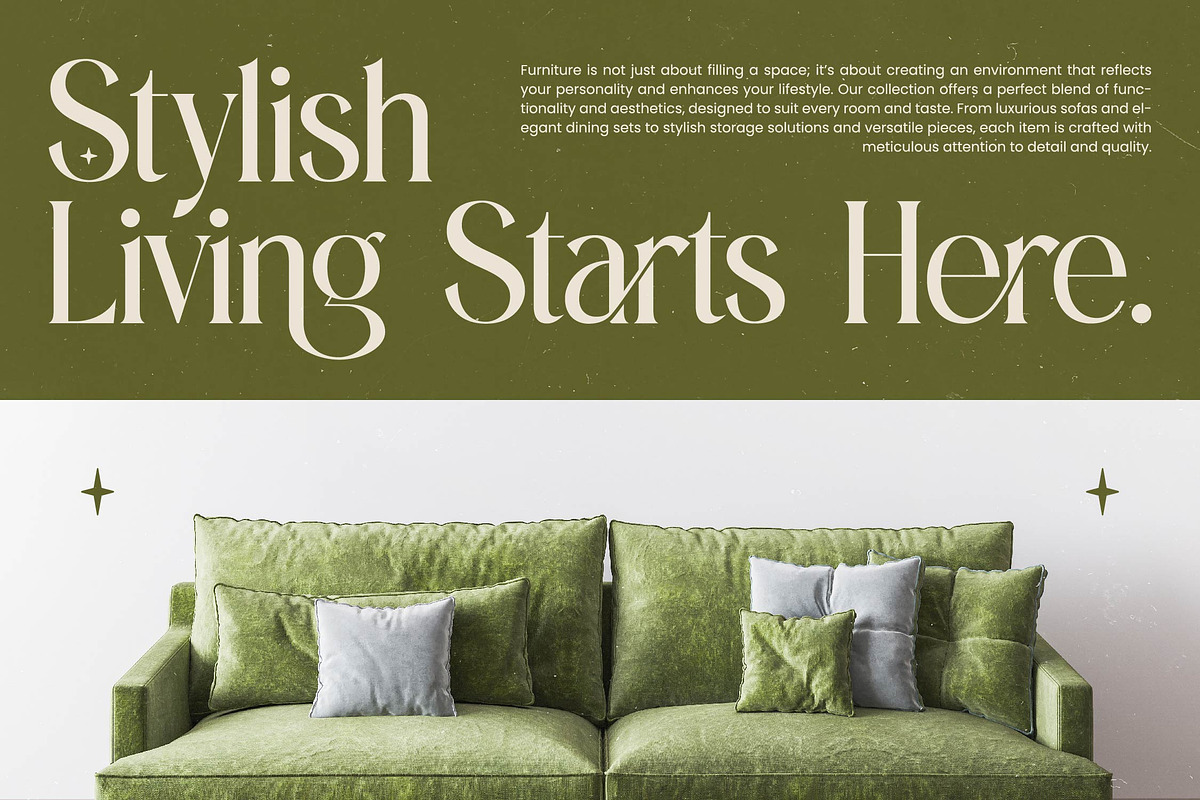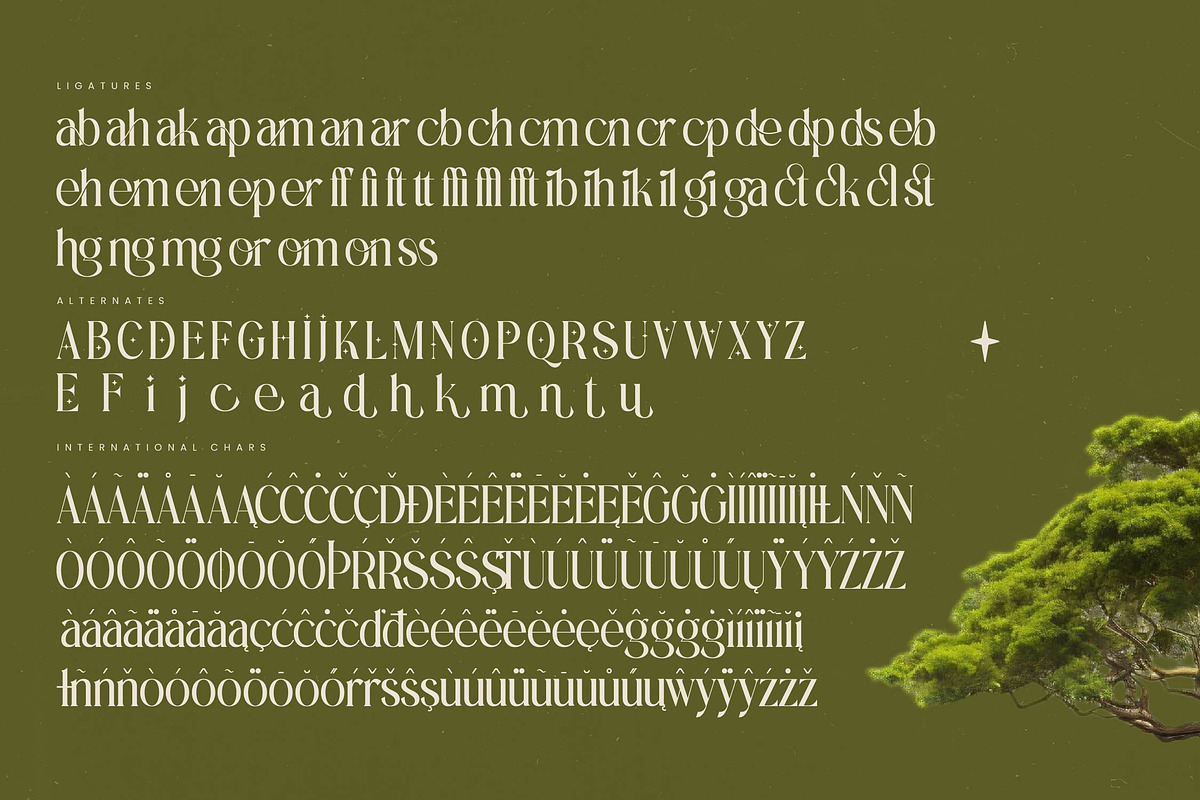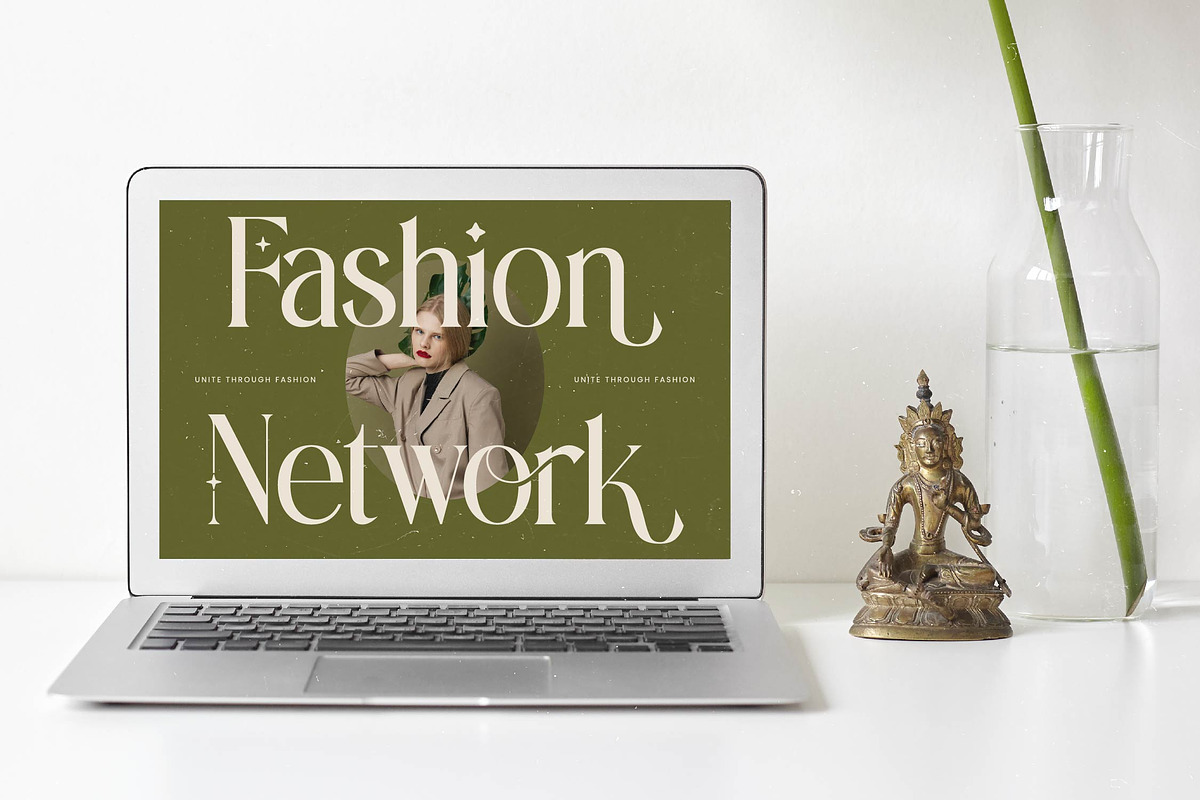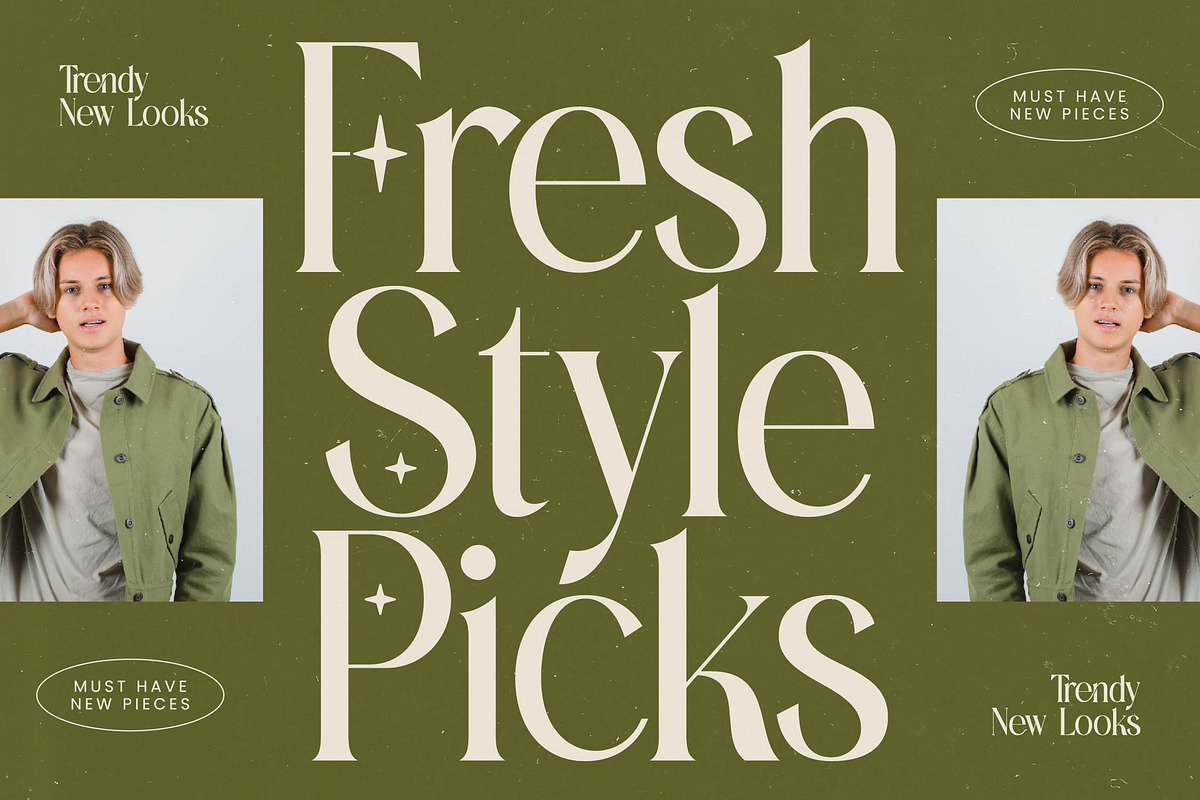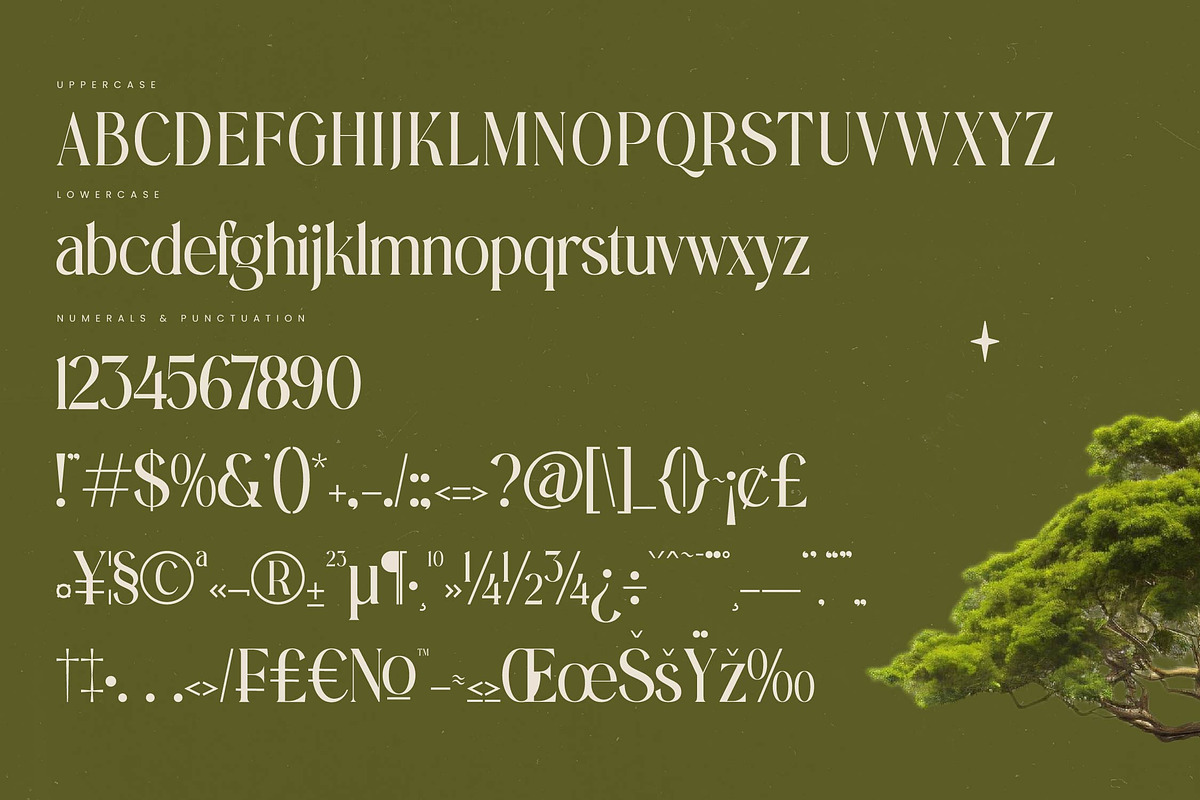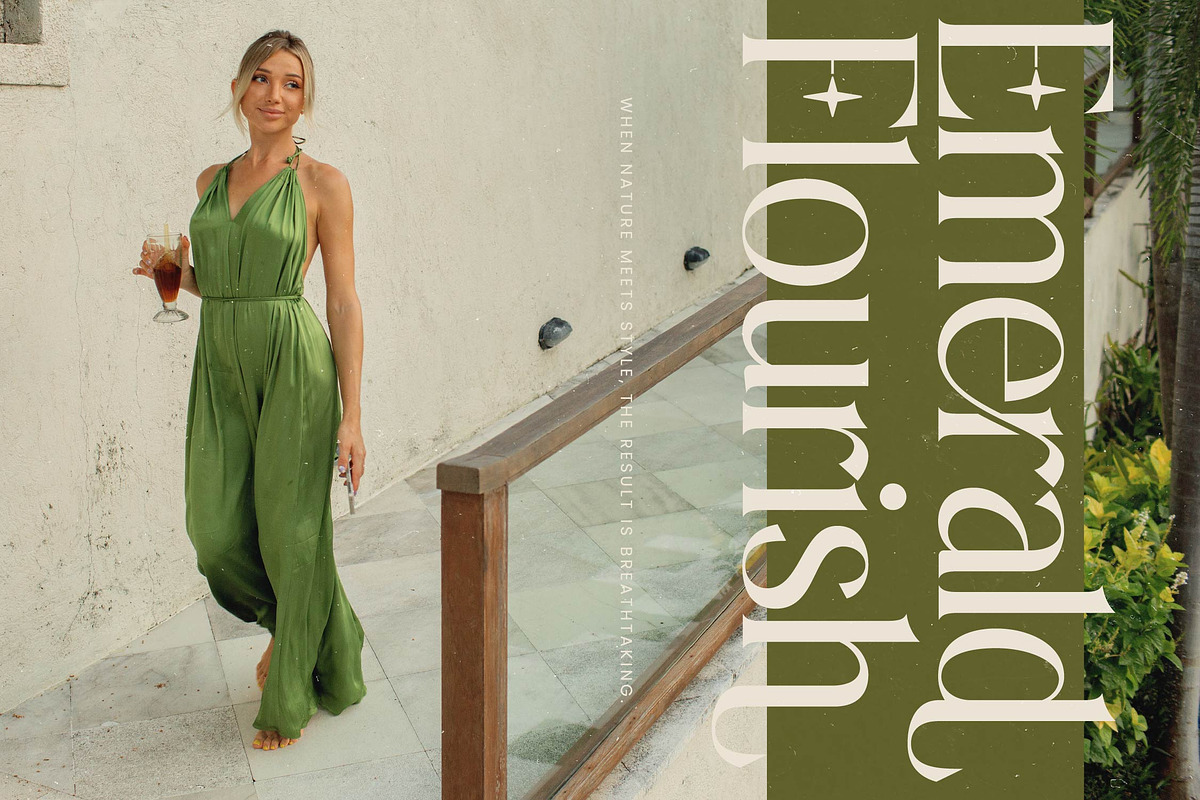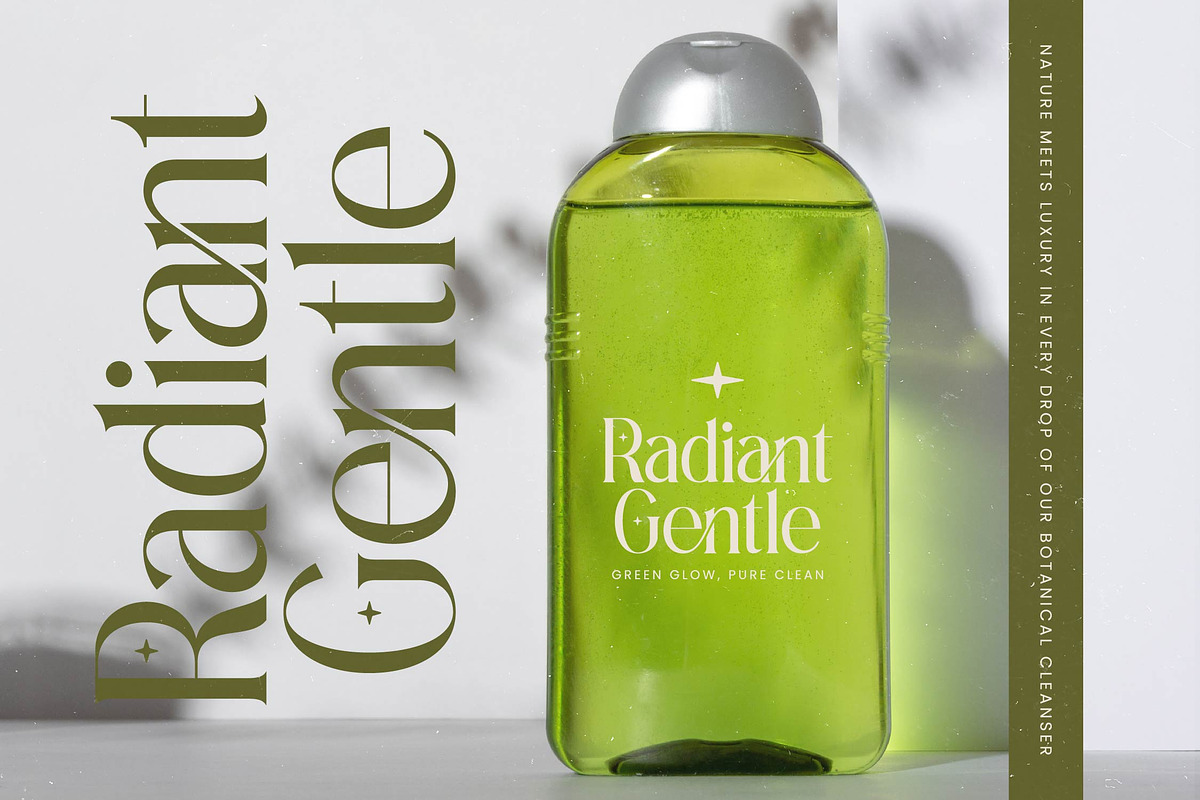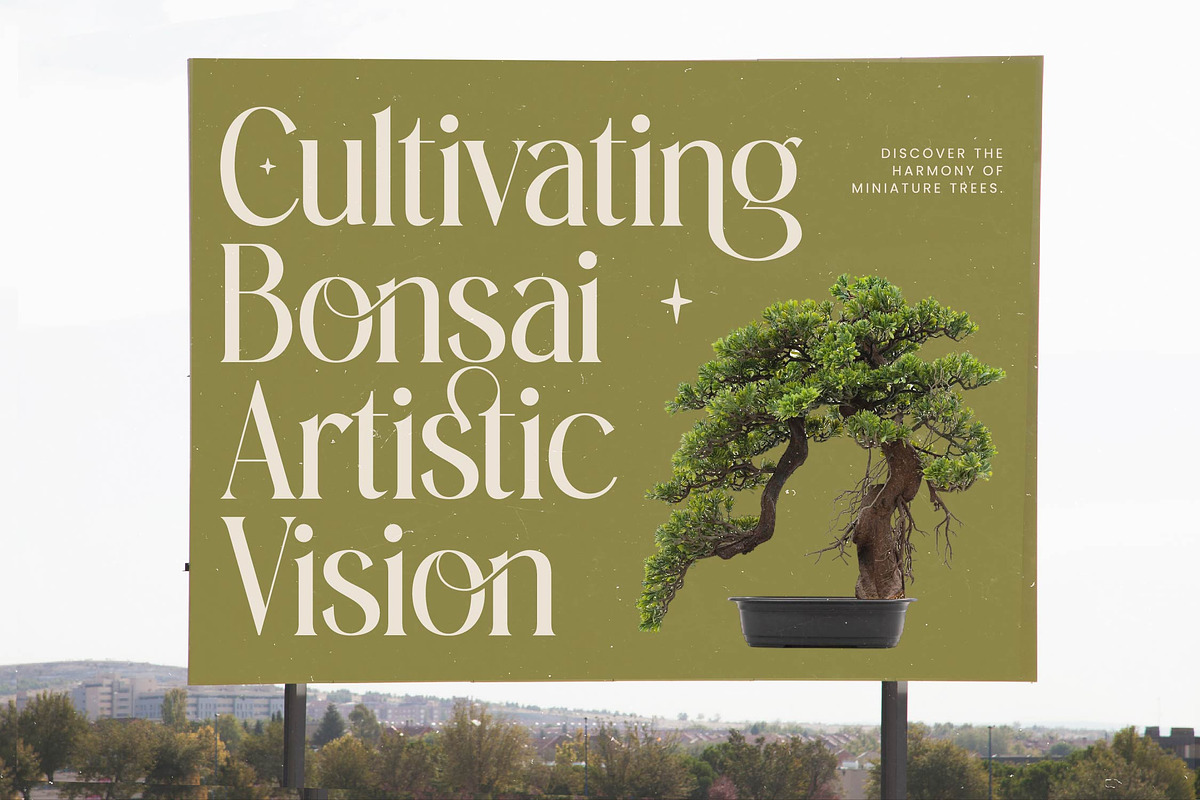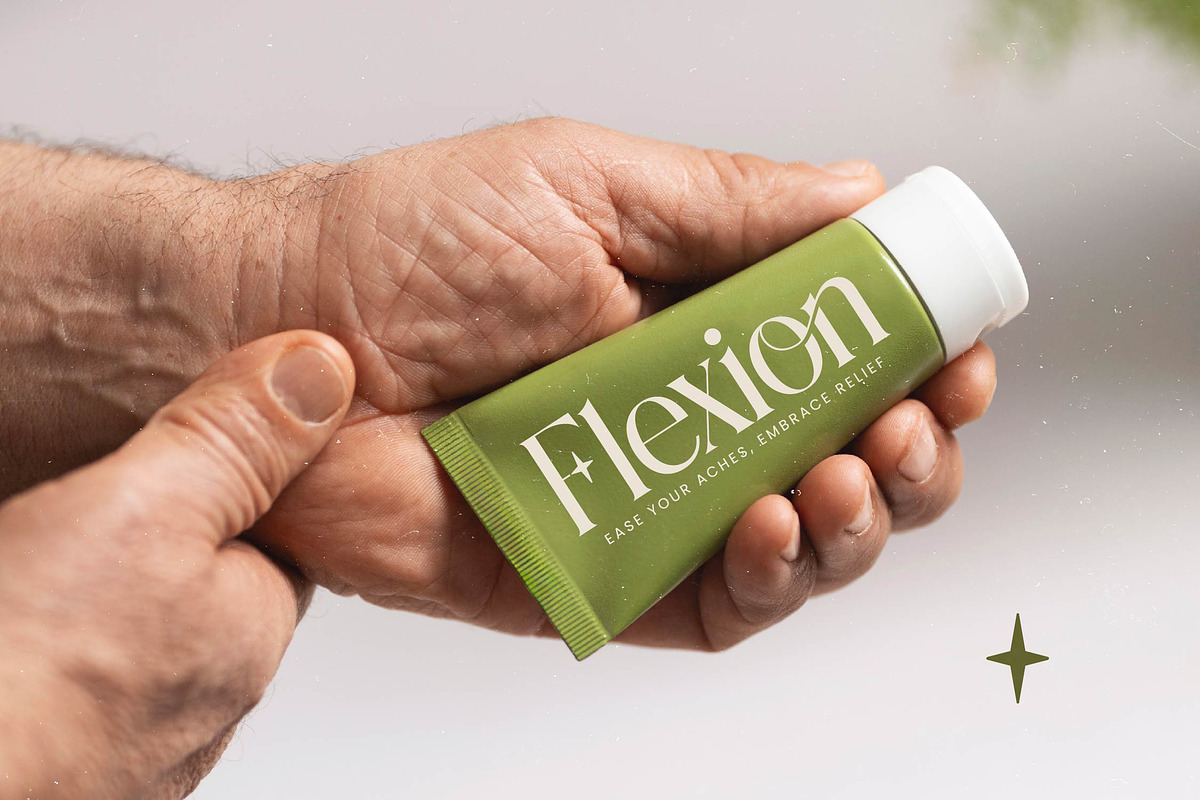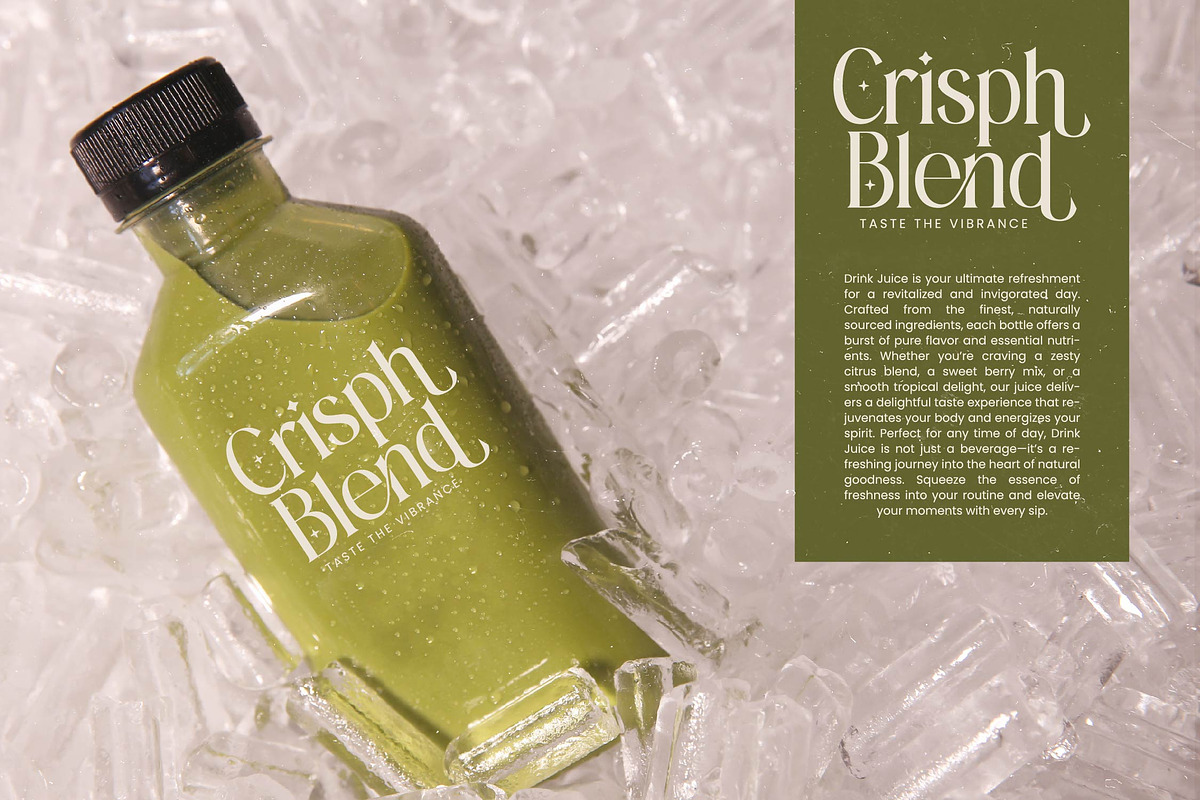
Eternalo Bold Luxury Modern Serif
Elevate your creative vision with the timeless elegance and sophisticated presence of Eternalo Bold. This typeface captures a perfect balance between classic stature and contemporary flair, designed to command attention in any layout.
Inspired by the organic geometry of the natural world and the enduring strength of ancient silhouettes, the font reflects a sense of deep-rooted heritage. Its tall, graceful forms evoke a serene atmosphere that feels both grounded and aspirational.
As a premium modern serif display, this typeface delivers a powerful branding impact through its razor-sharp high-contrast serif details. It is the quintessential luxury typography solution for designers seeking a high-end editorial font that bridges the gap between art and communication.
Staying ahead of the modern serif trend, this typeface embraces the movement toward character-driven typography that prioritizes personality without sacrificing legibility. It is a standout choice among editorial display fonts, offering a unique voice that resonates with today’s aesthetic demands.
Perfectly suited for high-stakes logo design and comprehensive branding identity systems, it excels in premium editorial layouts and luxury packaging. Its refined aesthetic makes it a favorite for wedding invitations and high-street fashion lookbooks.
This professional package is fully equipped with 48 ligatures and 39 alternates to provide endless creative variations. It features comprehensive multilingual support and a wide range of international characters, alongside beautiful swashes for a custom, handcrafted feel.
- Ligature 48 Alternate 39